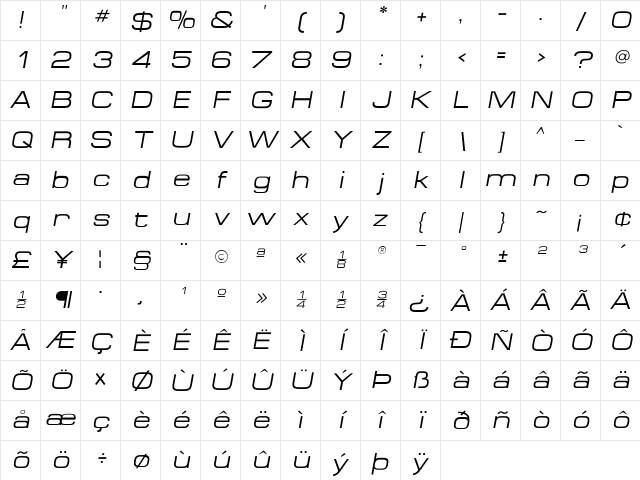
MicroExtendFLF Medium Italic
Complete MicroExtendFLF Medium Italic glyph index. Displaying only characters natively supported by MicroExtendFLF Medium Italic font.
Design Context for MicroExtendFLF
MicroExtendFLF is a composed and adaptable typeface that performs quietly and consistently across a wide range of design contexts. The slanted form adds forward momentum and visual energy.
Pro Tip: Use MicroExtendFLF for emphasis, pull quotes, and subheadings where its slanted energy can add rhythm to the layout.